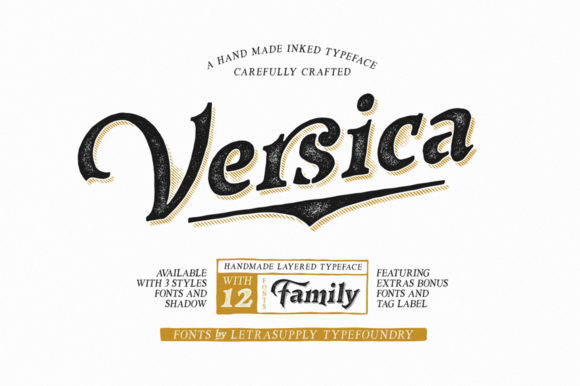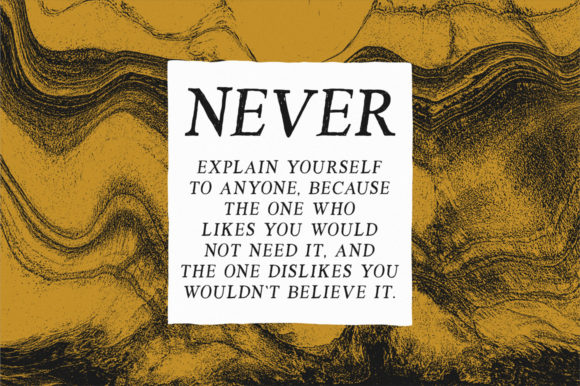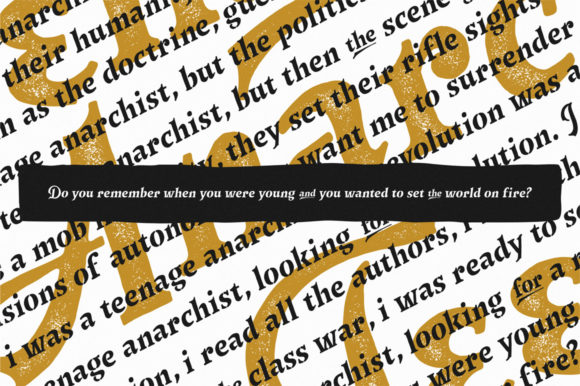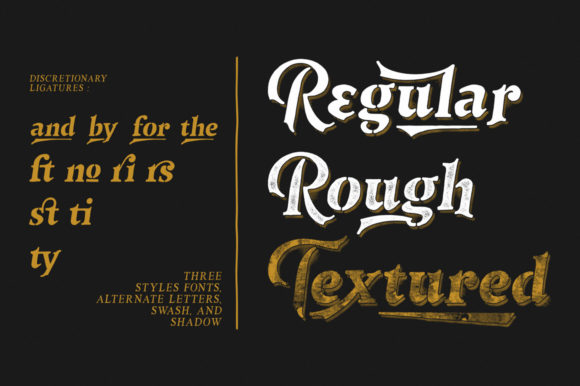
Versica Font
About Versica Font
Versica is a gorgeously handcrafted font family consisting of 12 unique scripts. They are dynamically playful and will add a unique charm to any design project.